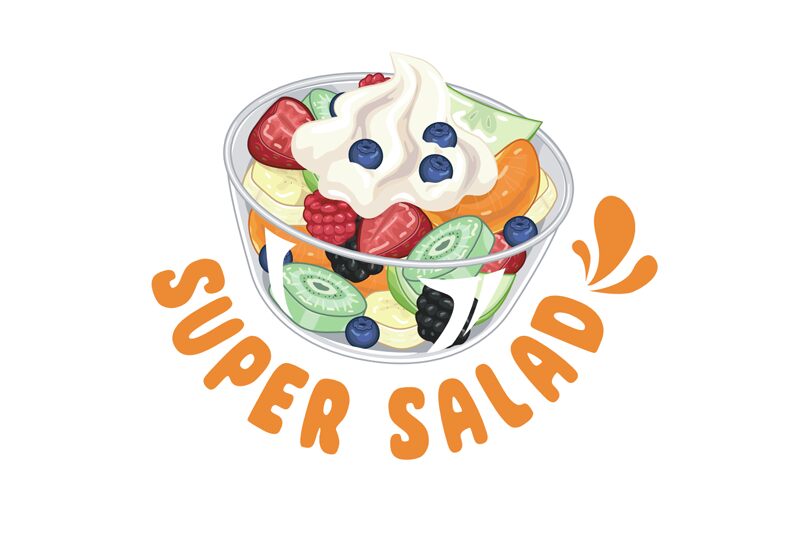
Super Salad
Super Salad, created by the talented designer fsuarez913, is a captivating display font that adds a playful touch to any project. With its extra-bold weight and condensed width, this cartoon-inspired typeface exudes energy and vibrancy. Perfect for children's books, comic strips, or animated videos, Super Salad injects a burst of personality into logos and headlines. Give your designs a whimsical twist with this font and watch them come to life with its unique charm. Let Super Salad be the secret ingredient that elevates your creative projects to new heights!